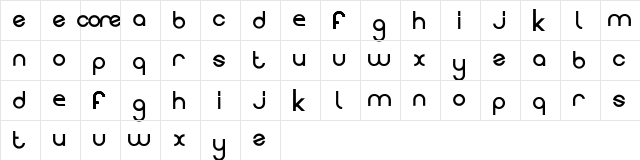
Evolution Evolution
| Foundry | PaulW & MattS |
| Designer | PaulW & MattS |
Design Context for Evolution Typeface
Evolution offers clean, dependable letterforms without strong stylistic allegiance, making it a practical choice for designers who need flexibility.